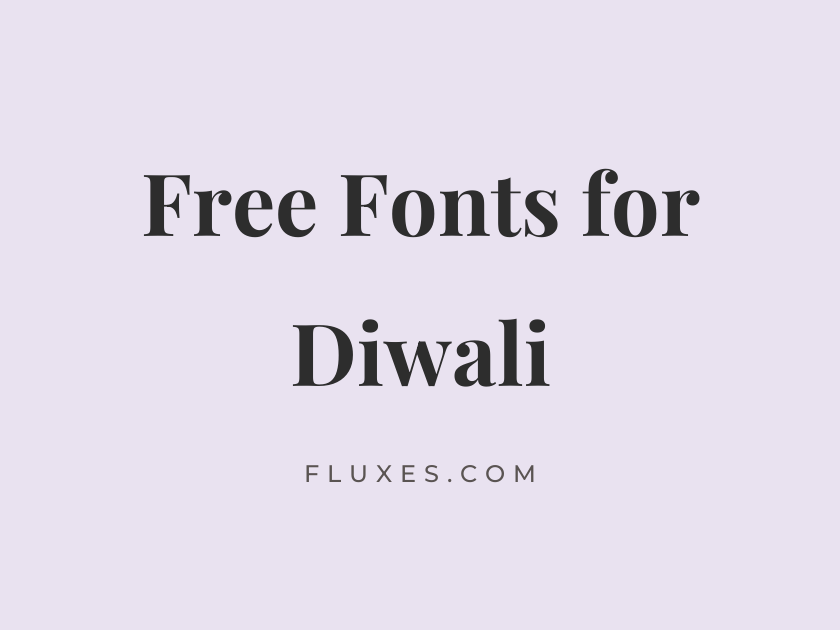
64 Best Free Fonts for Diwali
Diwali design work lives in a narrow but rich sweet spot: it needs to feel warm, celebratory, and a little bit opulent, whether you are laying out an invitation card, a festive Instagram post, a rangoli-themed poster, or a bilingual greeting that pairs English with Hindi or Punjabi script. Free Google Fonts cover this ground surprisingly well, from gold-foil-ready serifs and flowing scripts to the bold, rounded sans serifs commissioned specifically for Indian-language type systems. The fonts gathered here are grouped loosely by mood, so you can move from elegant invitation type to firework-bright display lettering to the handwritten warmth of a personal note.
Playfair Display carries the high-contrast, engraved elegance of classic invitation typography, which makes it a natural fit for formal Diwali cards and wedding-season crossover events. Its thin hairlines catch gold foil and metallic textures beautifully, though at small sizes those same hairlines can thin out and vanish, so keep it for headlines rather than body copy.
Cormorant Garamond has the hushed, literary elegance of an old letterpress invitation. It reads best set large and generously spaced, which suits the slower, more reflective side of Diwali messaging, like a family greeting or a poem about light overcoming darkness.
Cormorant is the display-weight cousin of Cormorant Garamond, with sharper contrast and a more decorative flourish in its italics. It pairs naturally with a plain sans serif for body text on an invitation.
EB Garamond is the dependable, unshowy choice for the paragraphs surrounding a flashier headline font. It has a bookish calm that grounds a festive layout without competing with gold ornamentation or illustrated diyas.
Marcellus has the cool, chiseled feel of stone carving, giving it an almost temple-inscription quality that suits Diwali content rooted in mythology and tradition. It works especially well in all caps for a subheading or a short devotional line.
Prata leans more Bengali-manuscript than Roman classical, with softly bracketed serifs that feel handcrafted rather than mechanical. Use it for short, ceremonial phrases where a touch of ornament is welcome.
Italiana is all restraint and thin, elongated strokes, closer to a luxury perfume label than a party flyer. Save it for minimal, upscale Diwali branding, like a boutique’s festive collection announcement, where negative space does most of the talking.
Tenor Sans
Tenor Sans is a clean, geometric serif-free companion for the more ornamental display fonts on this list. It keeps a modern retail or hospitality Diwali campaign feeling polished rather than folksy.
Cinzel draws from Roman capital letterforms, giving it a ceremonial gravity that suits temple event signage or a formal puja invitation. Its capitals are strong and evenly weighted, so it holds up even at smaller sizes better than most classical revivals.
Cinzel Decorative takes that same Roman skeleton and adds curling swashes at the terminals, turning it into a genuinely festive display face. It is best reserved for a single headline word or two; anything longer starts to fight for attention with itself.
Yeseva One has a friendly, slightly rounded high-contrast look that reads as celebratory without tipping into novelty. It is a favorite for greeting card headlines because it photographs and prints well against warm color backgrounds like marigold orange or deep maroon.
Abril Fatface is heavy, glossy, and unapologetically loud, exactly what a fireworks-and-fairy-lights headline calls for. Use it sparingly; its weight makes long lines feel cramped, so it works best on a short punchy line.
Bodoni Moda modernizes the classic Bodoni contrast with variable-width options, giving designers a fashion-editorial serif that still feels appropriate for a formal Diwali dinner invite. It pairs elegantly with a soft script for the RSVP line.
Fraunces has a soft, almost buttery warmth in its curves that few serifs manage, making it feel handmade rather than stamped. Its optical sizing means it can flex from a cozy invitation headline down to comfortable reading text, which is unusually versatile for a display serif.
Vesper Libre
Vesper Libre was designed with Devanagari in mind, so its Latin companion shares proportions that sit comfortably alongside Hindi or Marathi text on the same page. That makes it a smart pick for bilingual Diwali cards and event programs.
Reserve the loudest display fonts, like Bungee or Passion One, for short promotional headlines rather than full sentences, since their weight and shape work against long-form readability.